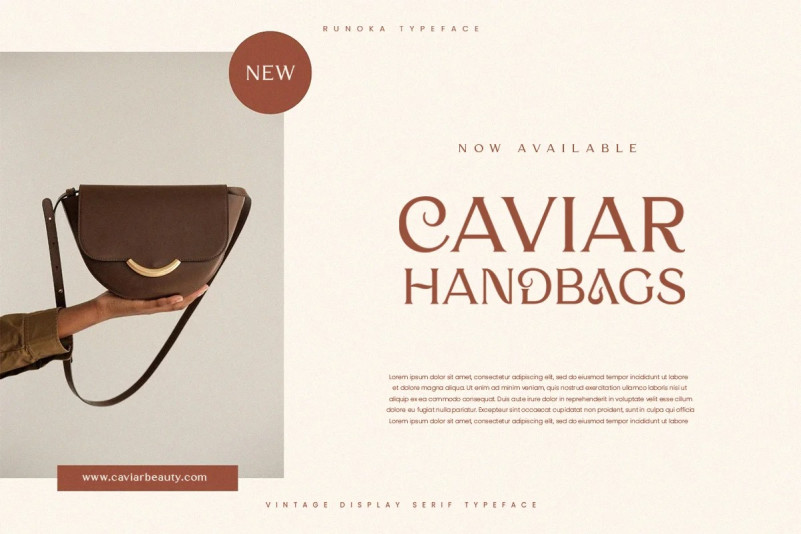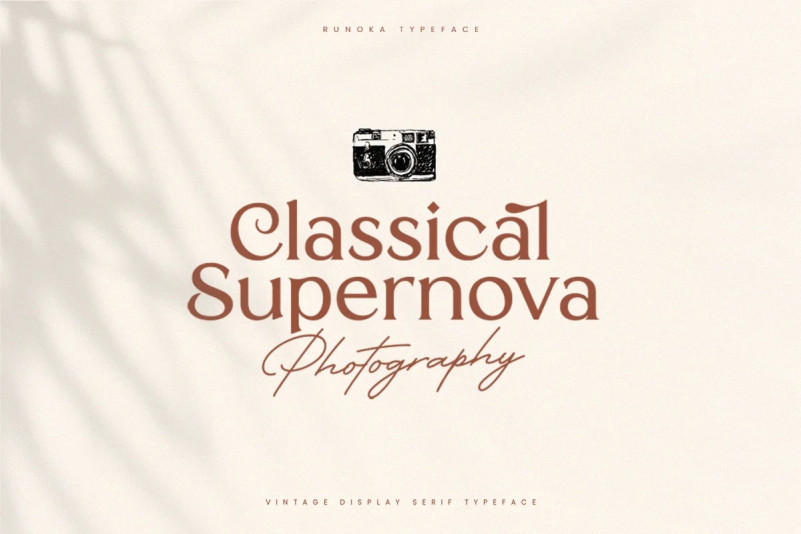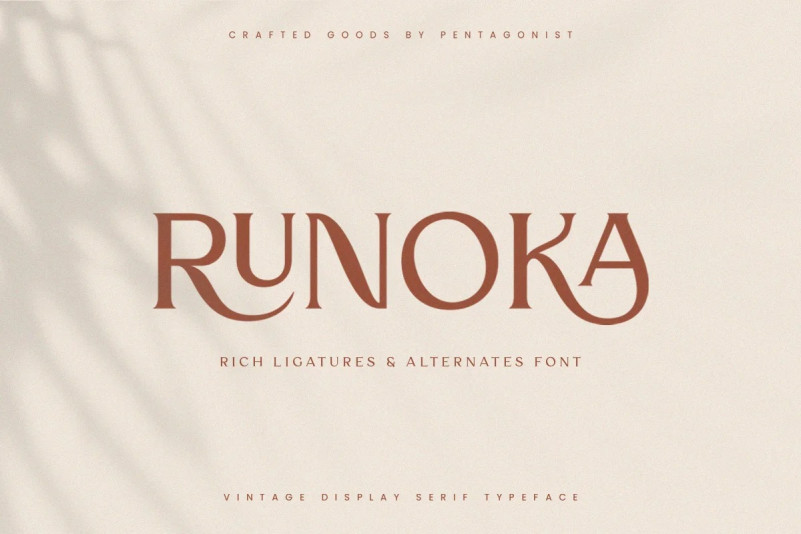
Runoka Serif Font
Runoka is vintage display serif fonts Inspired by Rich ligatures & alternates. It can easily be matched to an incredibly large set of projects, so add it to your creative ideas and notice how it makes them stand out!